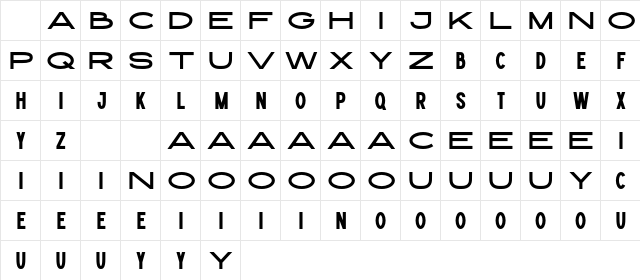
High Cruiser is a composed and adaptable typeface that performs quietly and consistently across a wide range of design contexts.
Pro Tip: Use High Cruiser in both headline and body roles to test its range before committing to a single application.